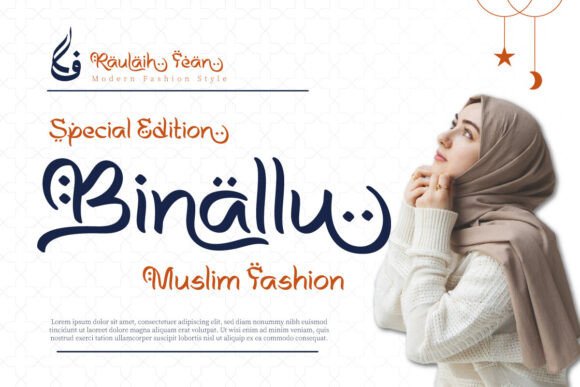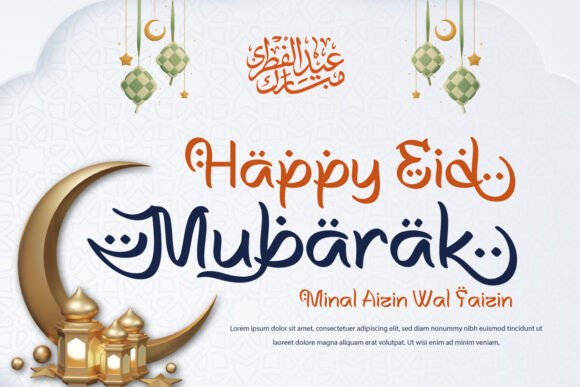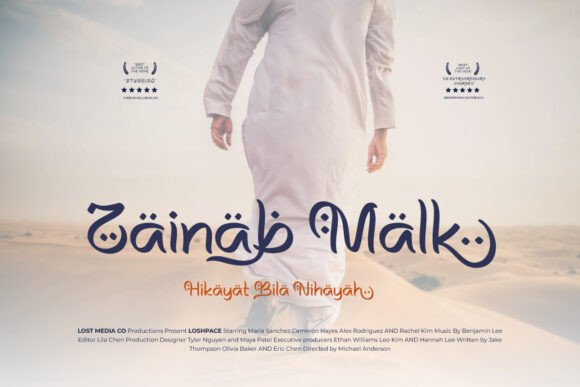
Introduction to Raulaih Font
Have you ever been inspired by a beautiful script while brainstorming for a creative project? Maybe it was the intricate curves of an Arabic calligraphy that sparked an idea, or the elegant lines of a traditional font that set the tone for your design. For many designers, the search for the perfect font is an integral part of the creative process. That’s why we’re excited to introduce you to Raulaih Font, a high-quality typeface that brings the timeless beauty of Arabic script to your designs.
As a valuable resource for designers, Raulaih Font offers a unique aesthetic that’s perfect for projects requiring an elegant cultural touch. With its simple lines and graceful curves, this font is ideal for branding, event invitations, posters, and editorial layouts. Whether you’re working on a free download or a paid project, Raulaih Font is sure to add depth and a sense of heritage to your designs.
- High-quality design: Raulaih Font is a beautifully crafted font suitable for creative projects requiring a high level of visual sophistication.
- Unique characteristics: The font features a unique blend of modern and elegant design elements, making it a great choice for designers looking to add a touch of sophistication to their creative project.
Honest Review: Raulaih Font
I recently stumbled upon the Raulaih Font and I must say it’s a great addition to any designer’s toolkit. The high quality of this font makes it perfect for creative projects where a unique look is essential.
- ✨ High quality and crisp typography
- ⚠️ The transparent background may not be ideal for all design projects, particularly those requiring a solid background
- ⚠️ Limited font styles and weights may restrict its versatility in certain designs
Overall, I’m impressed with the Raulaih Font’s design and functionality. It’s a solid resource for designers looking for a unique and high-quality font. While it may not be perfect for every project, it’s definitely worth considering for your next creative endeavor.
For optimal results, use Raulaih Font in conjunction with a high-contrast background to make the text stand out. You can also experiment with different font sizes and styles to create visual interest. Additionally, consider pairing the font with other design elements, such as graphics and images, to enhance the overall design.
Raulaih Font is ideal for a variety of creative projects, including brochures, posters, and business cards. Its unique design and transparent background make it perfect for creating eye-catching and high-quality designs. With its free download option, you can easily incorporate this font into your next design project.